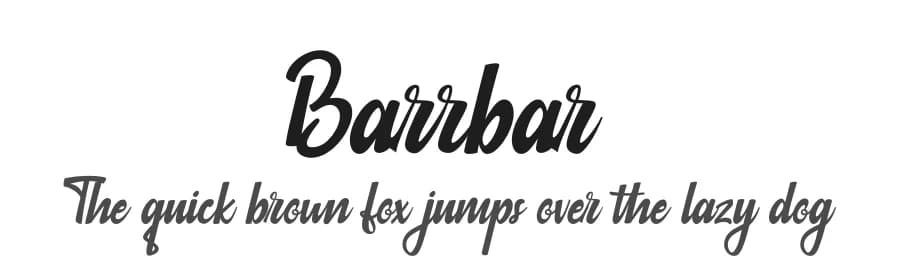
About Barrbar Font
Barrbar is a script & handwritten font designed by Mayofont. It includes 258 glyphs, a regular weight, OTF (CFF) format, and 211 languages. Barrbar is free to download; check the license details on this page before commercial use. Script & handwritten fonts like Barrbar work best for wedding invitations, greeting cards, signatures, and elegant branding.
Barrbar Font is a script font that shines as a display or heading face. Pair it with a clean sans-serif or serif font for body text β the contrast creates a clear hierarchy while the two styles stay balanced and easy to read.
Barrbar Font
by Mayofont
Barrbar Font is a script handwritten typeface by Mayofont, ideal for logos, invitations, branding, and creative projects.